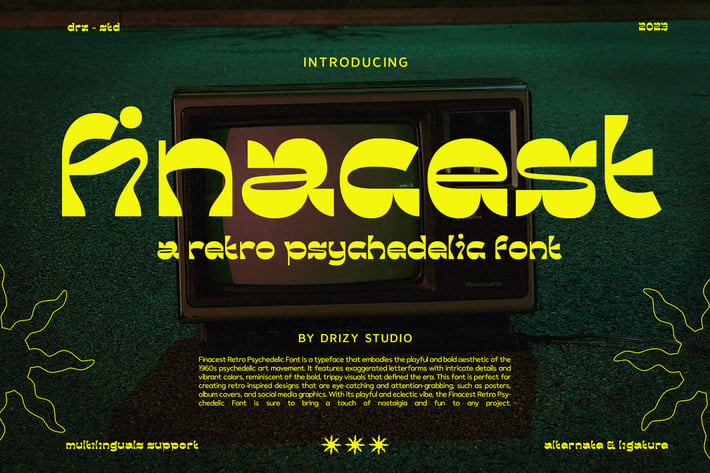
Finacest - Retro Psychedelic Font
Finacest – Retro Psychedelic Font
Finacest is a Retro Psychedelic Font from Drizy Studio. Offering all the styles you need for your unique vintage projects.
Finacest features:
Lowercase Only
Alternatives
Numeral
Ligatures
Finacest is a Retro Psychedelic Font from Drizy Studio. Offering all the styles you need for your unique vintage projects.
Finacest features:
Lowercase Only
Alternatives
Numeral
Ligatures